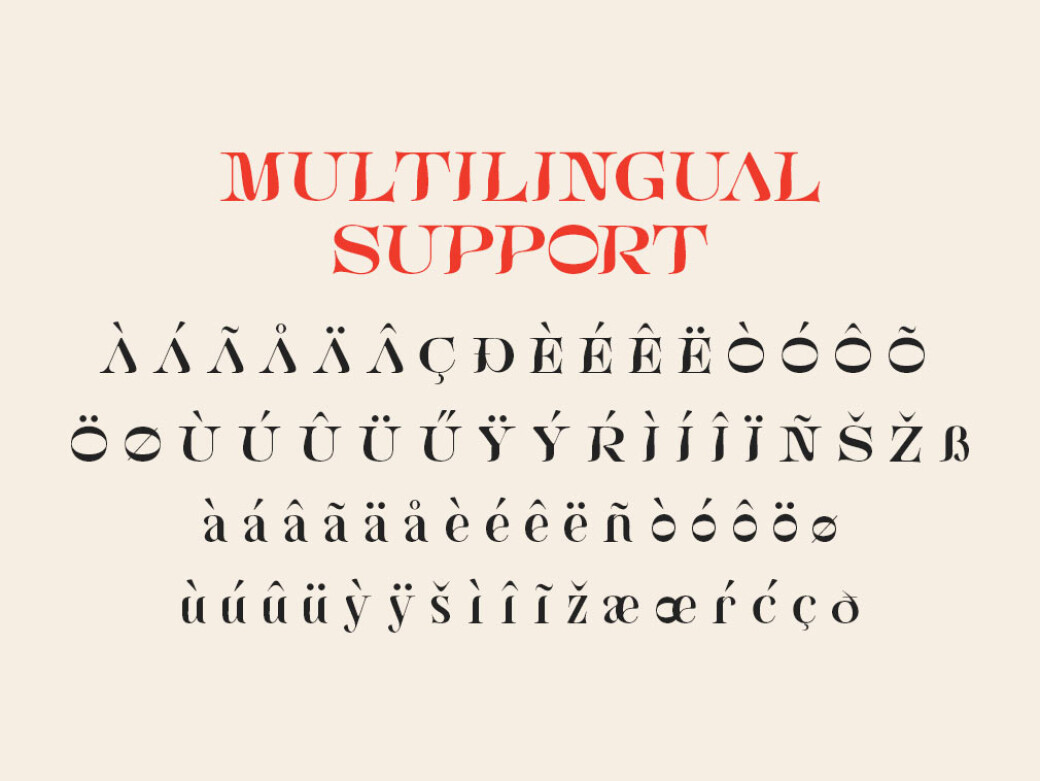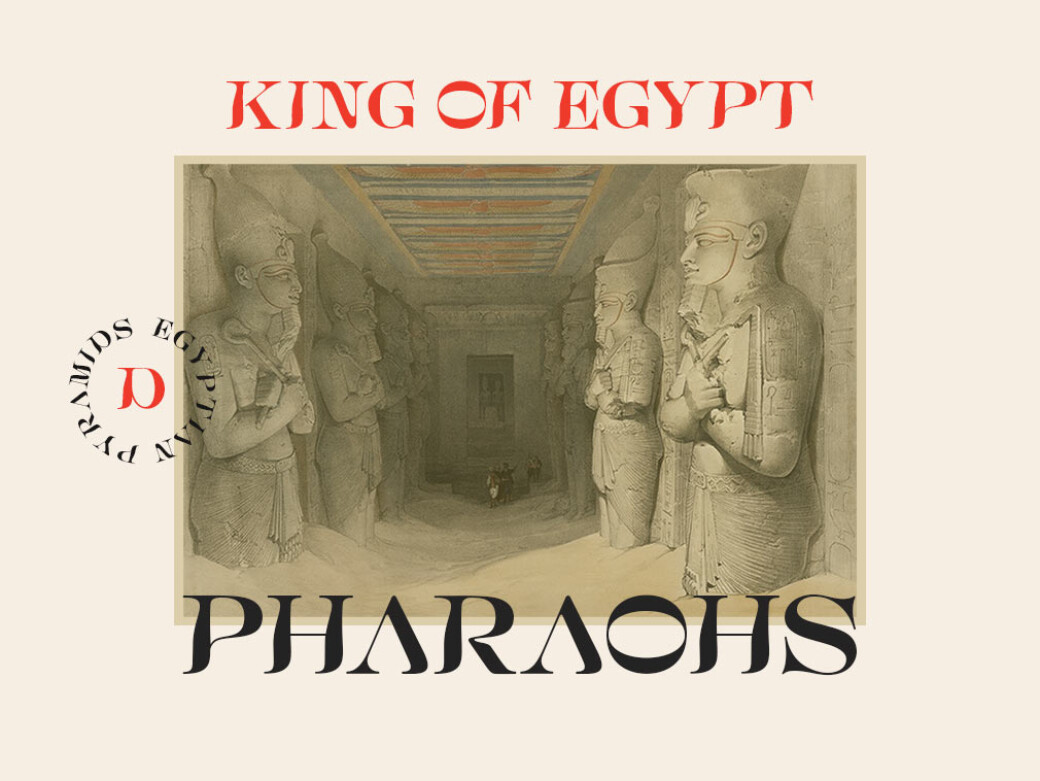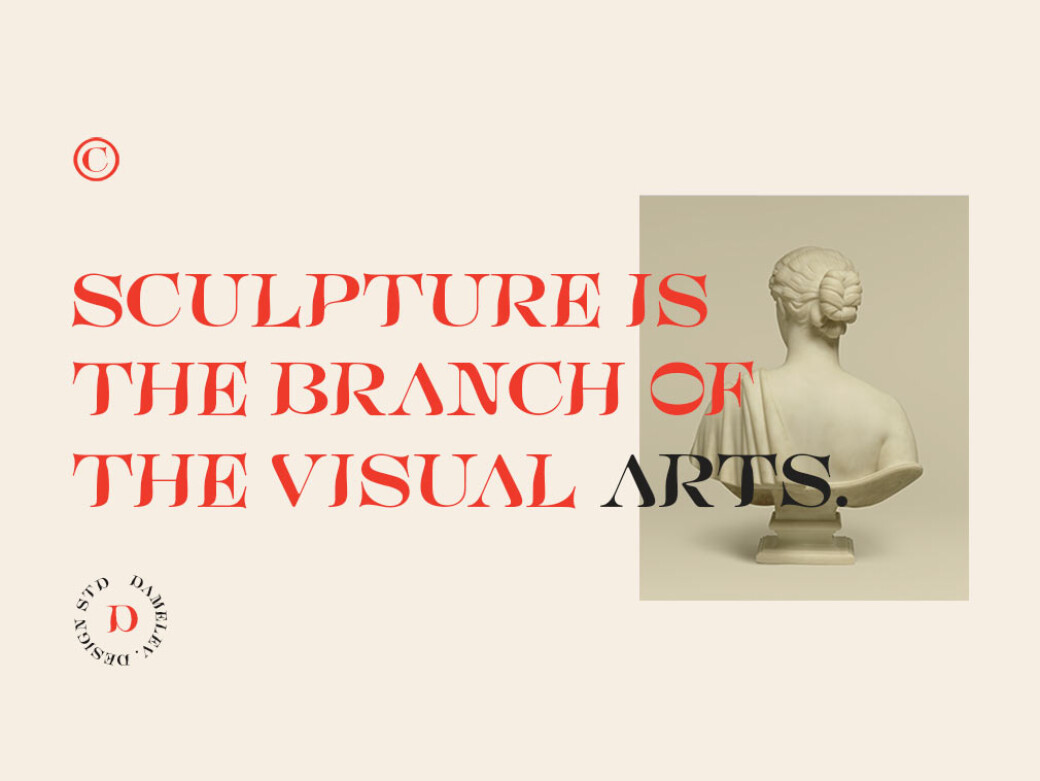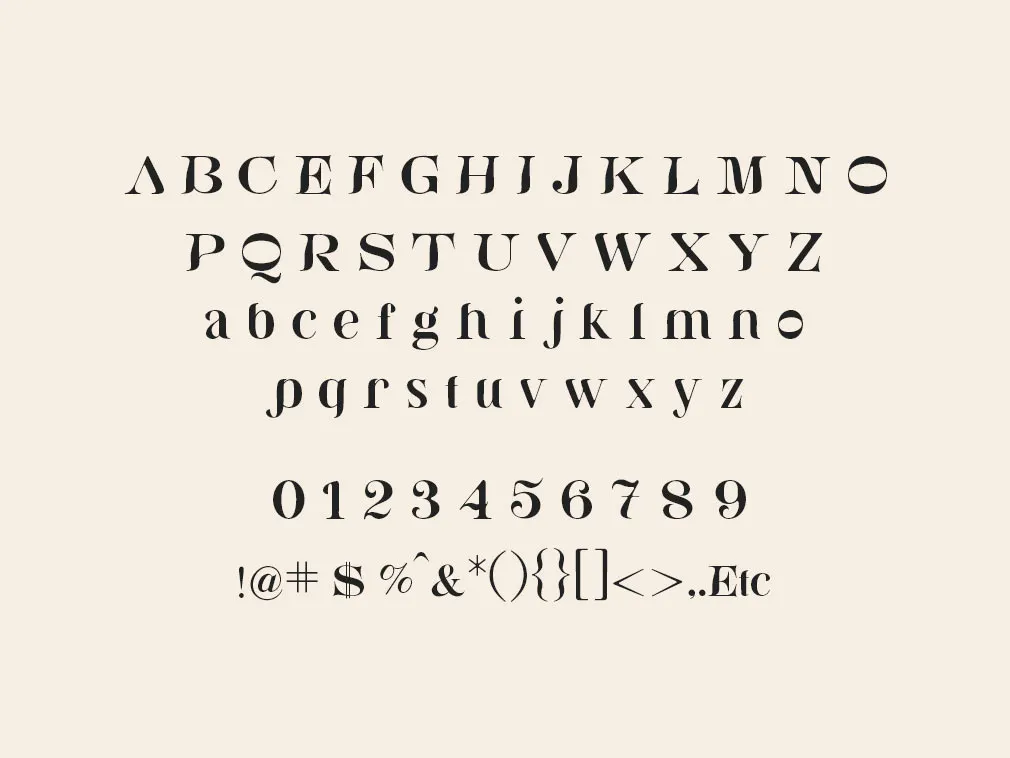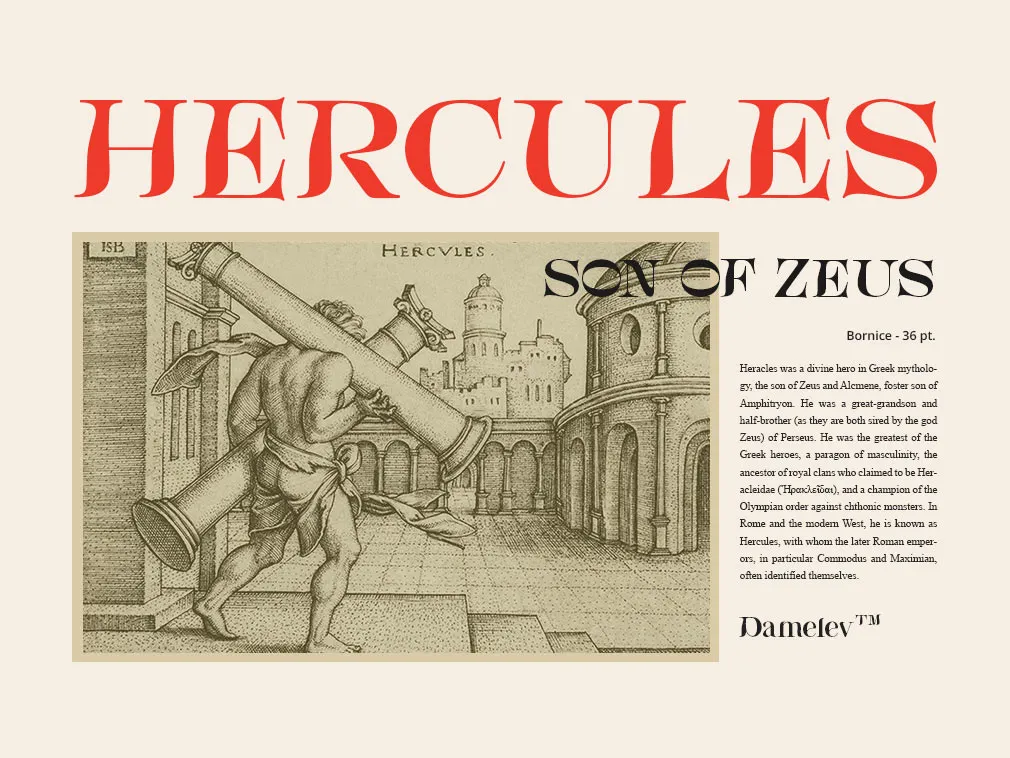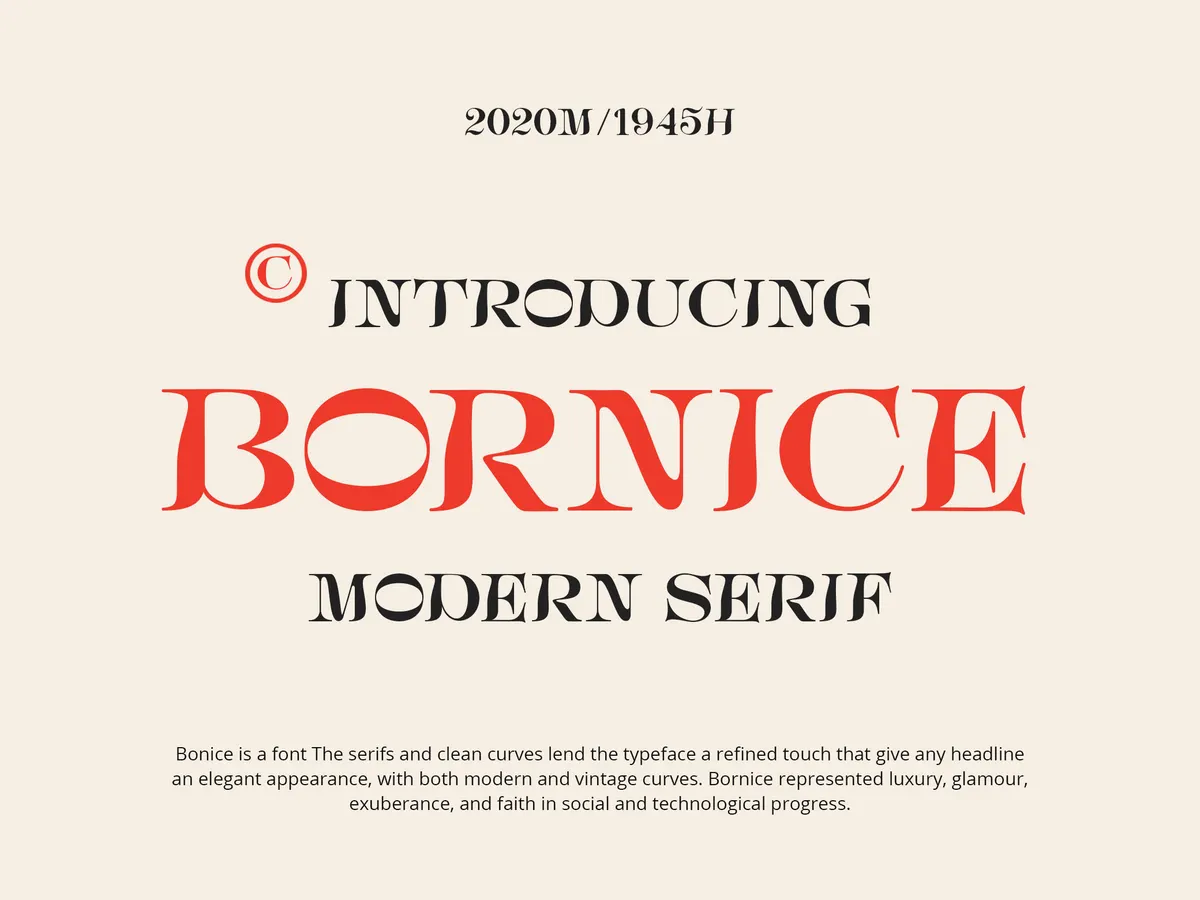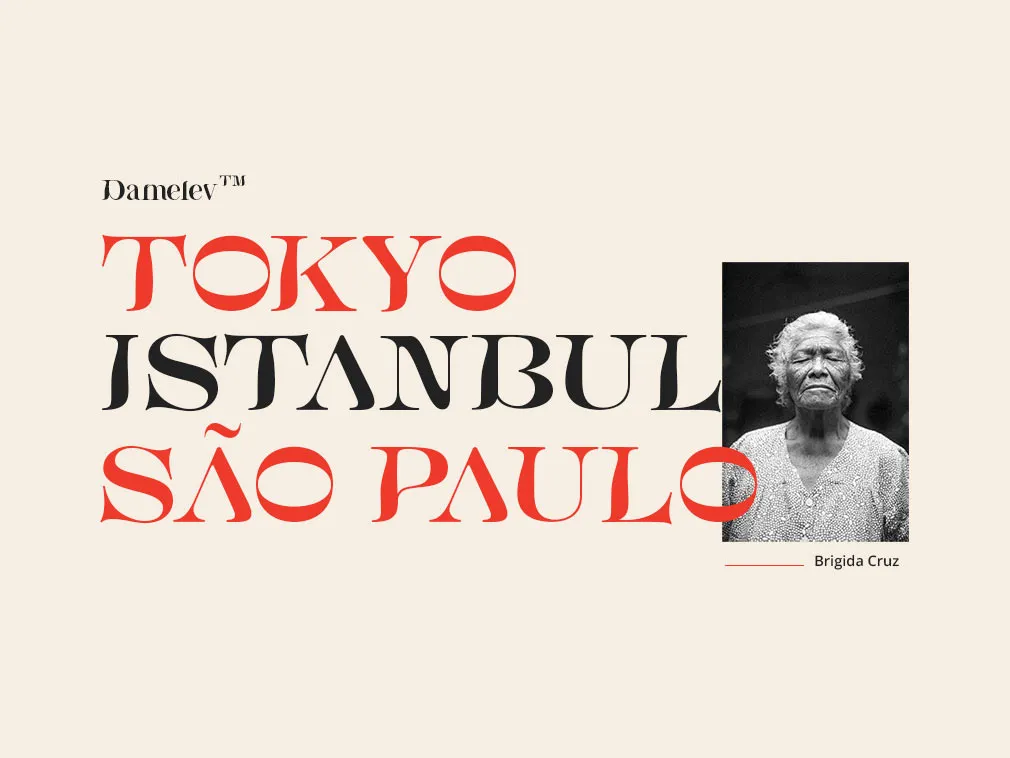
Bornice Serif Font
Save some space in your toolbox for a modern serif typeface with a touch of refined retro. Give any headline an elegant appearance, with both modern and vintage curves existing in harmony within one font.Bornice represents luxury, glamour, exuberance, and faith in social and technological progress! The font comes with multilingual support and Open Type features you can access working in Photoshop, Illustrator o Indesign. It works perfectly for a creative project such as a logo, T-shirt/apparel design, badge, invitation, packaging, headline, poster, magazine, greeting card, and wedding invitation.